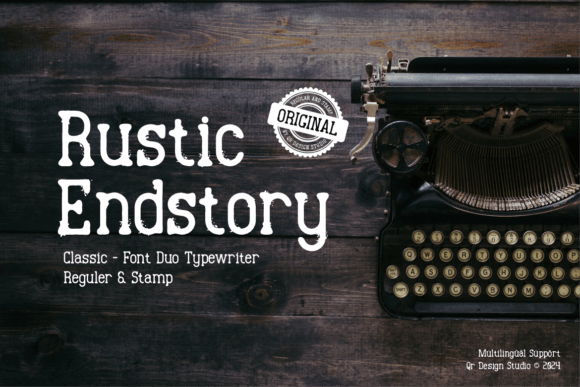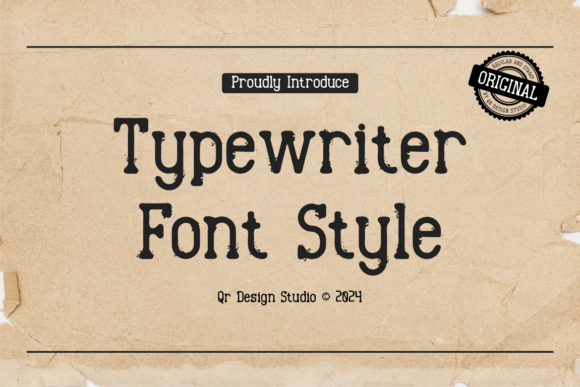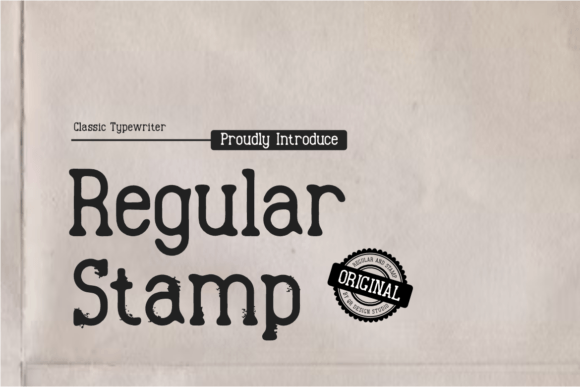
Introduction to Rustic Endstory Font
Discover Rustic Endstory: a vintage-style, typewriter serif font that transports you back in time.
With its weathered texture and classic structure, it evokes the nostalgia of old manuscripts and analog communication Perfect for creating historical documents, themed event invitations, and unique literary works.
Key Features of Rustic Endstory Font
Why Choose Rustic Endstory Font?